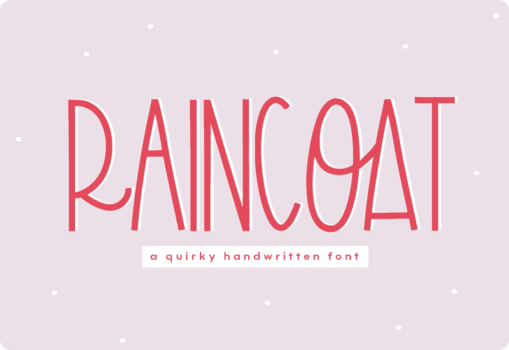
Raincoat is an all-caps font. Raincoat is perfect for all of your crafting projects, SVG files, shirts, logos, branding, social media, and more! Whether you’re looking for fonts for Instagram or handwritten scripts for DIY projects, Raincoat will turn any creative idea into a true piece of art! This font is also perfect for quotes, shirt designs, websites, branding, children’s designs, SVG designs, blogs, logos, invitations, and more!